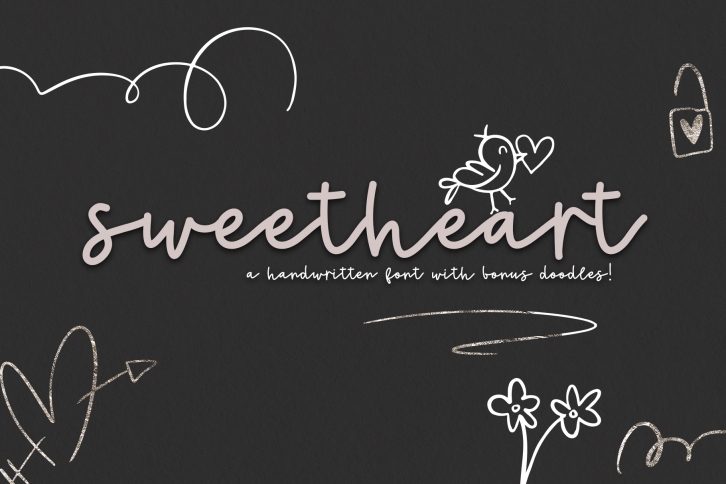
Sweetheart is a trendy and unique font with an authentic style. It was designed by KA Designs and it's a great choice for creative people who need such a font. It was released on December 26, 2018 and the file size is 13.98 MB. Sweetheart will add an organic vibe to any design idea!